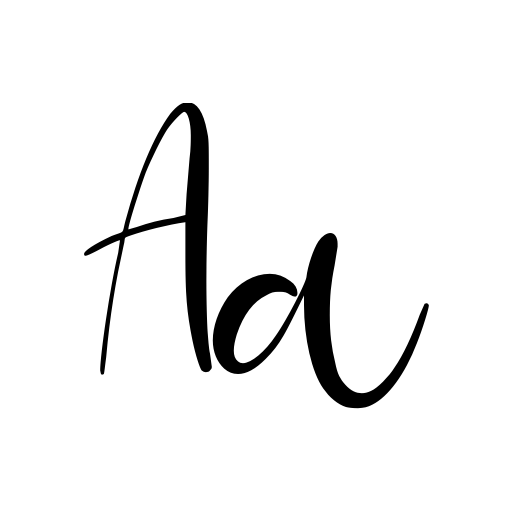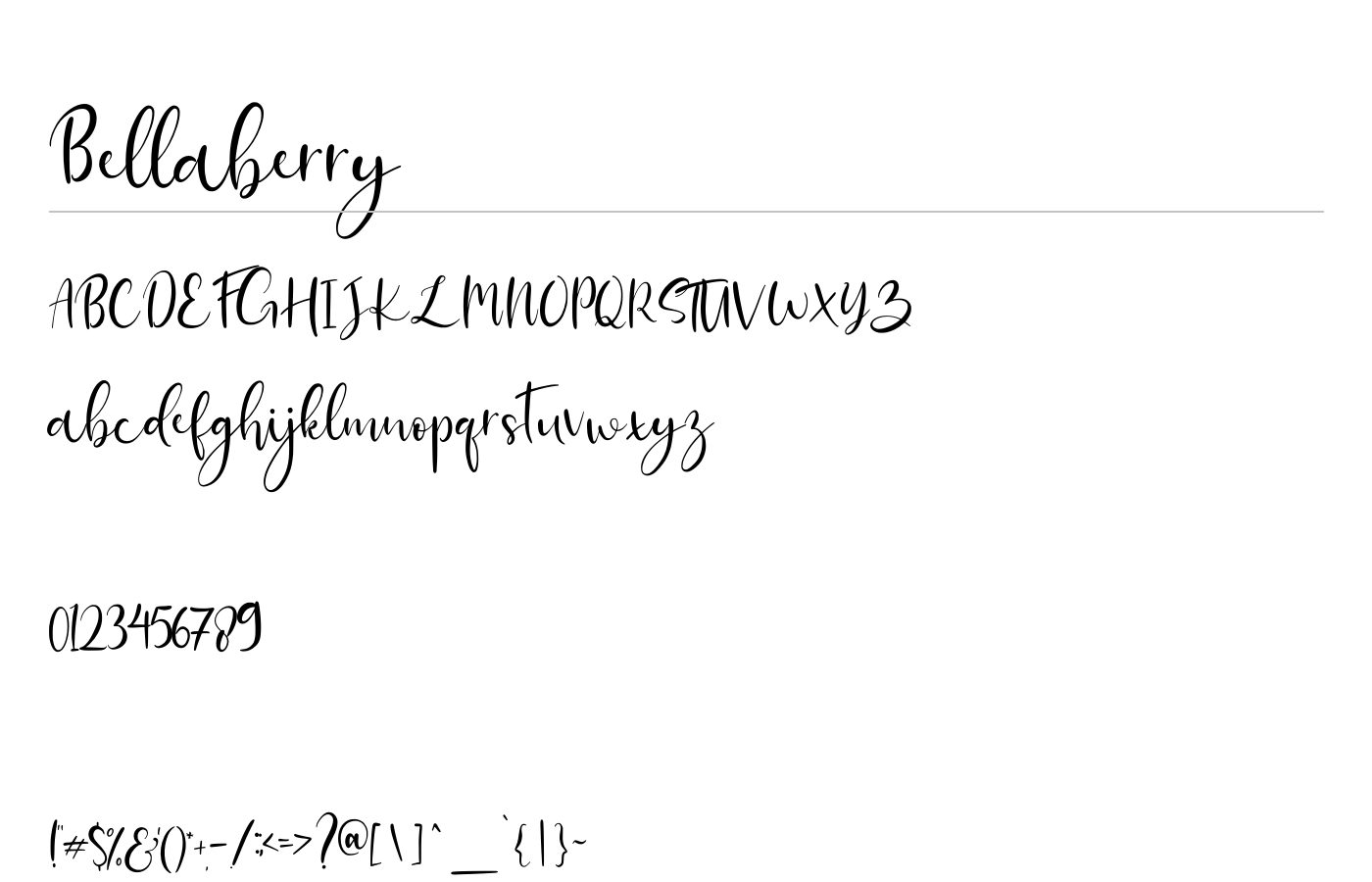
Bellaberry is an elegant script font with a hand-lettered feel, featuring slender, flowing strokes and delicate flourishes that create a graceful, personal touch. Its moderately tall x-height and varied stroke widths give it a lively, stylish character, making it perfect for wedding invitations, branding, and any design that benefits from a charming, feminine aesthetic. This font works beautifully in headlines and logos where a sophisticated yet approachable look is desired.
Bellaberry Font
About Bellaberry Font
| Font family | Bellaberry Font |